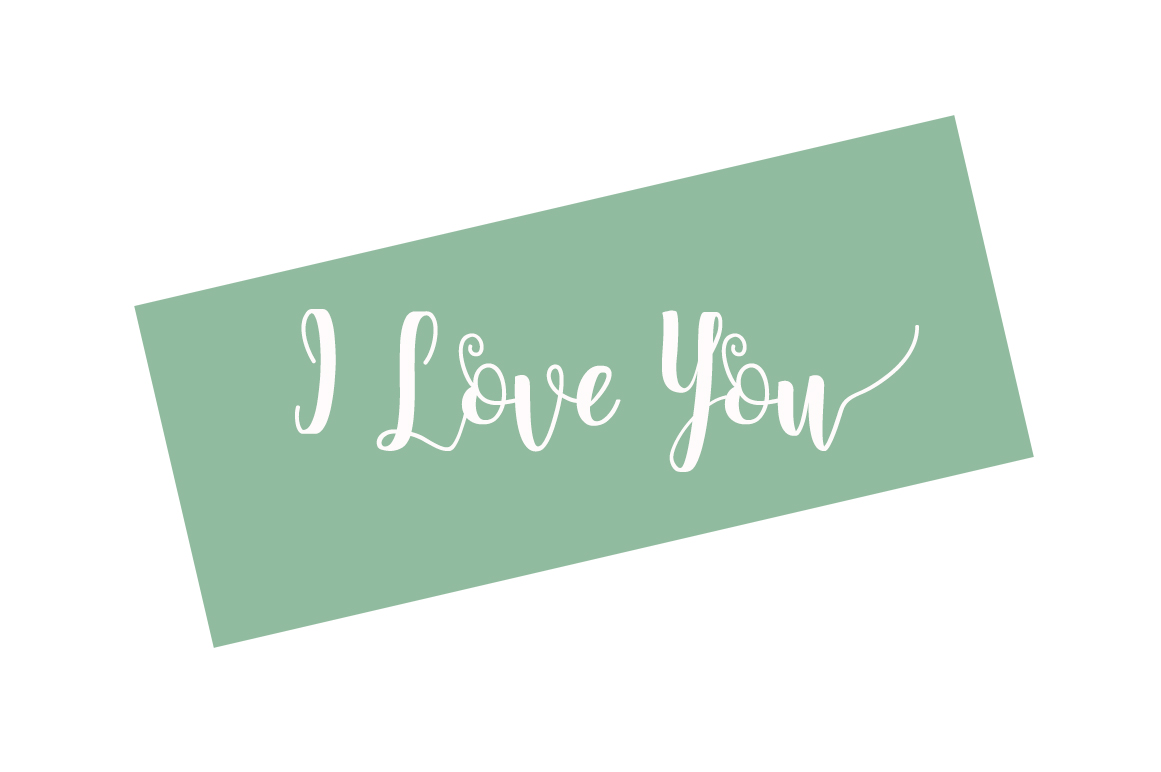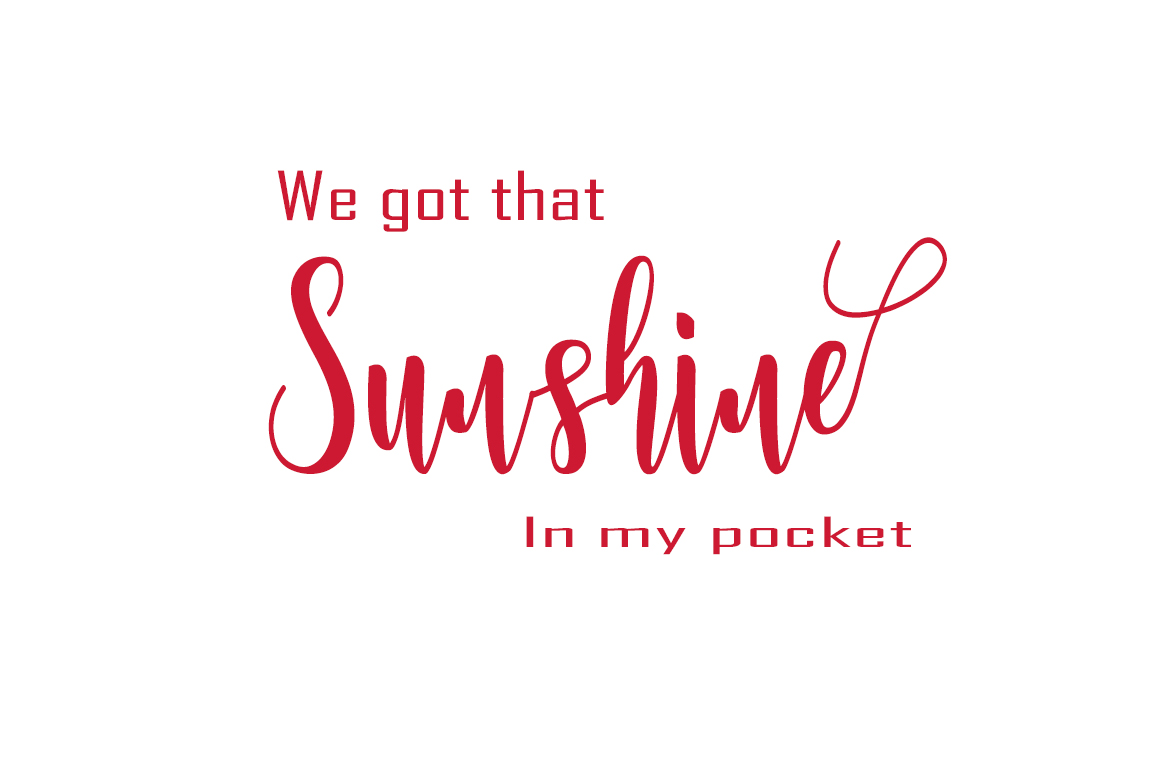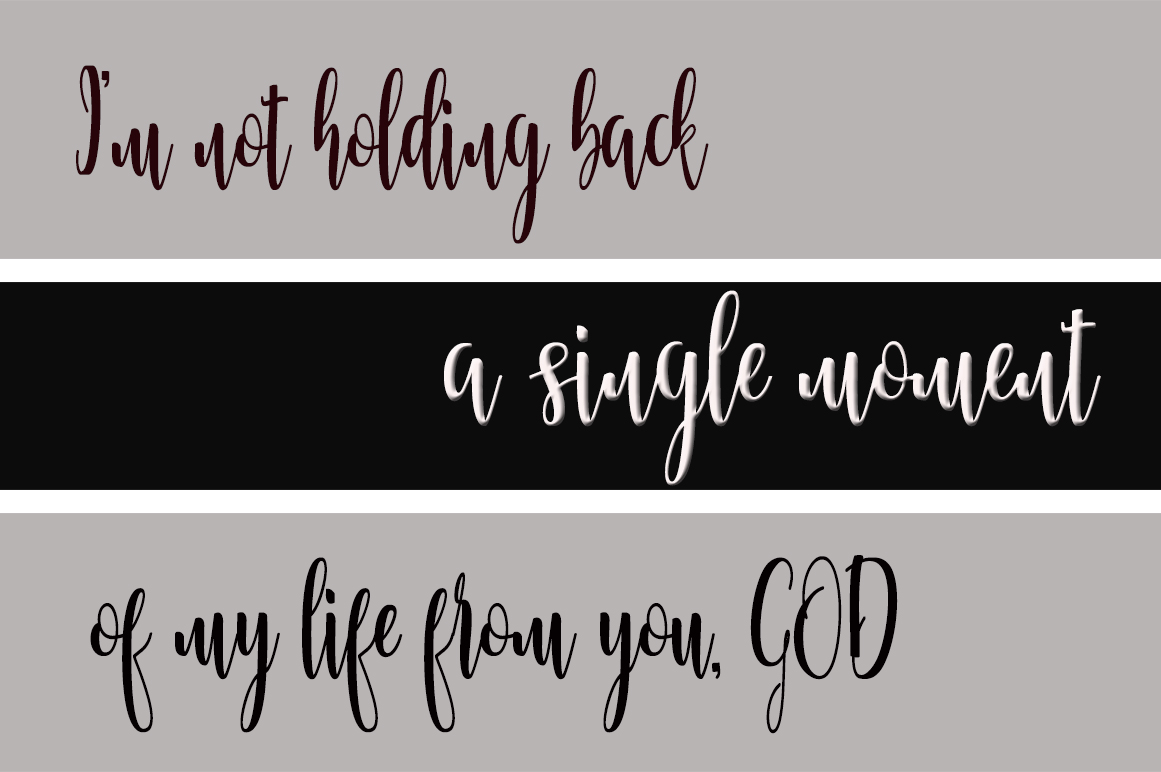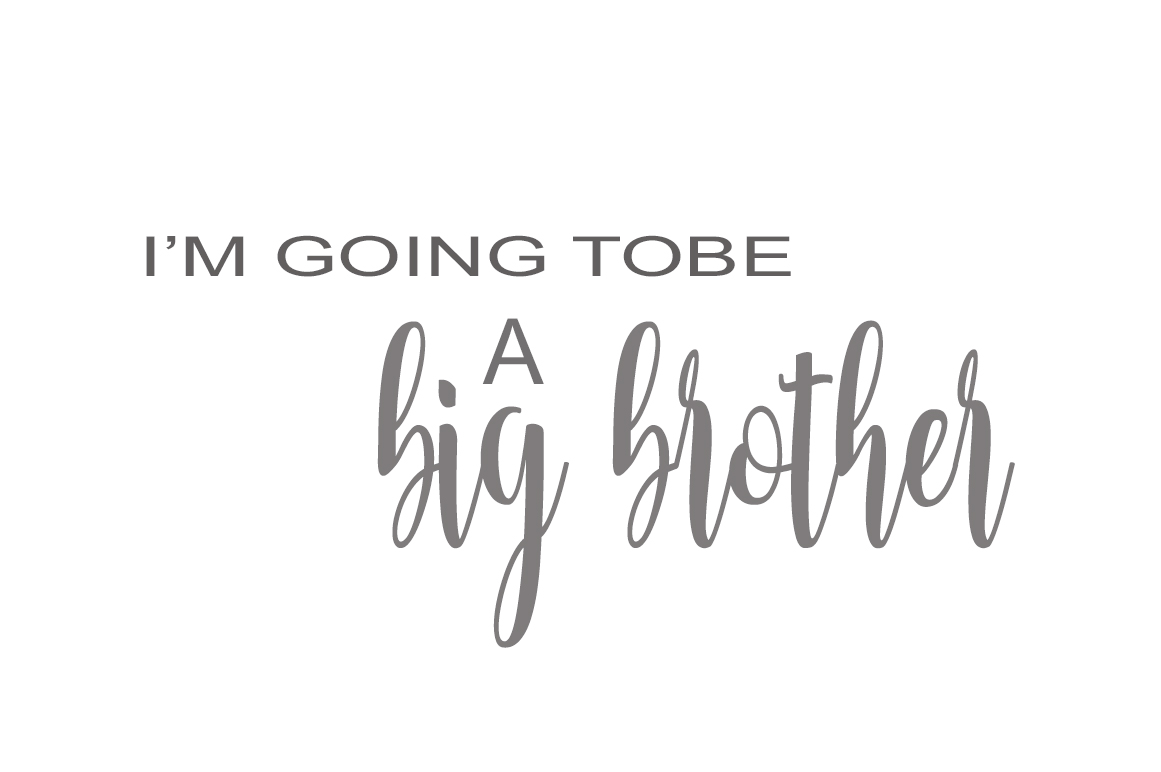
Feelling Font
Feelling is a romantic, girly script filled with flourishes and exaggerated calligraphy.
Use Feelling, a handwritten script, to add some romance to your designs or projects.